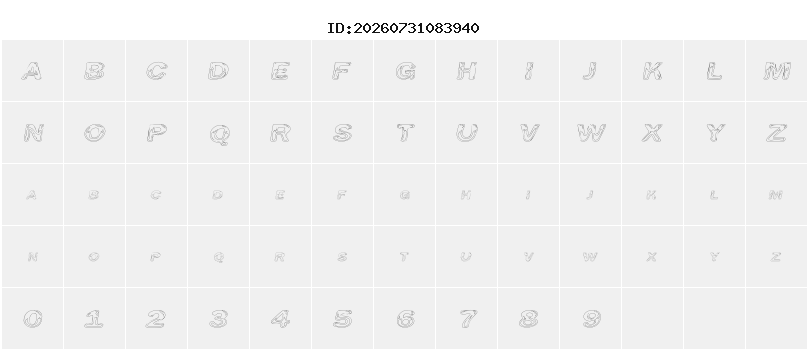
About Line Etch.ttf
Line Etch.ttf is a modern, elegant sans-serif font designed for ultimate readability and visual harmony. Perfect for branding, headlines, web design, and print materials.